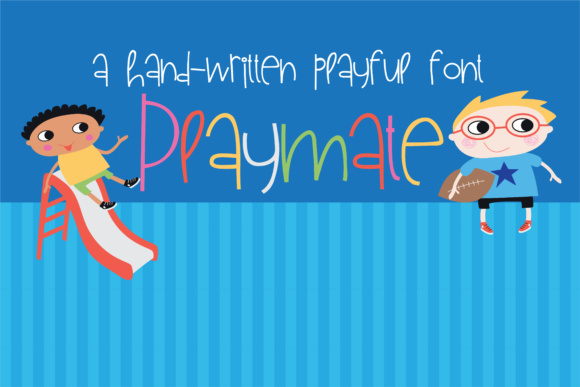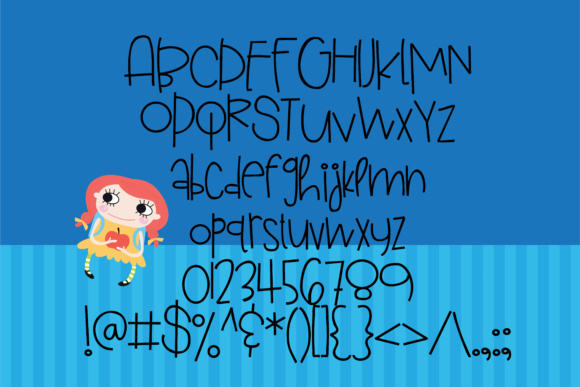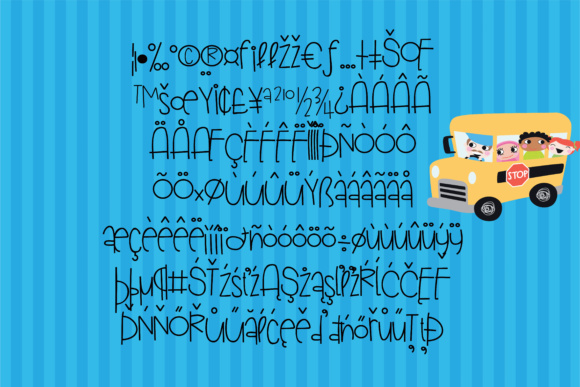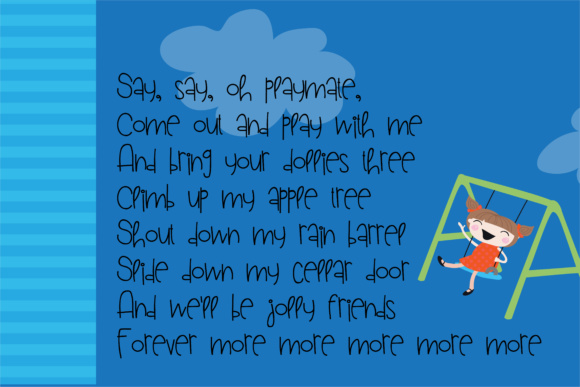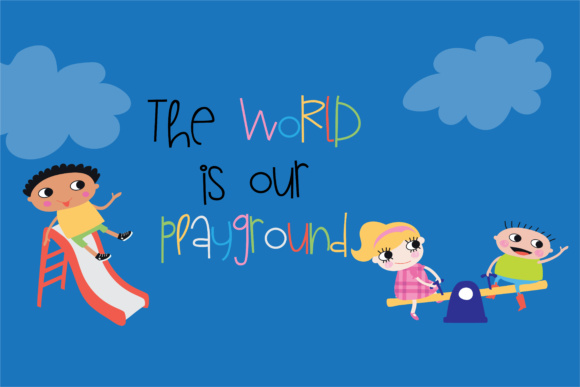
Playmate Font
About Playmate Font
Playmate is a childish, handwritten font that can add a very whimsical and youthful look to your projects. This font has thin lines and can add a truly clean yet impish appeal to your work.